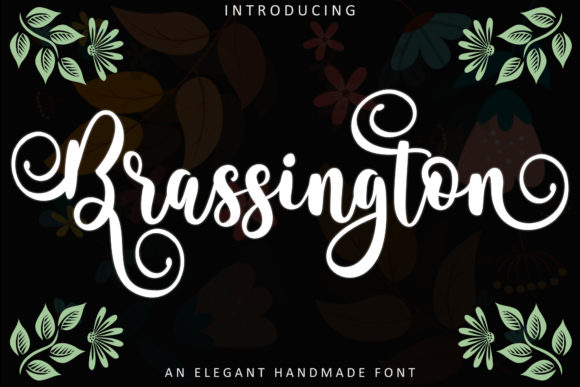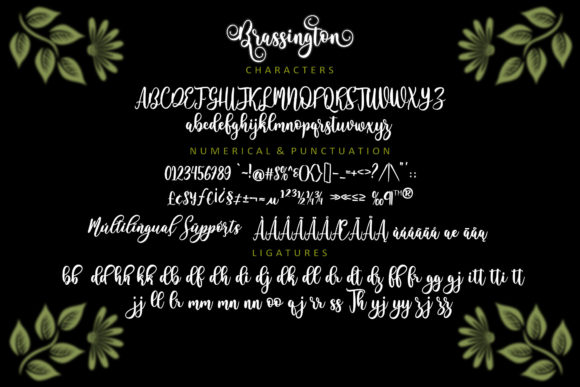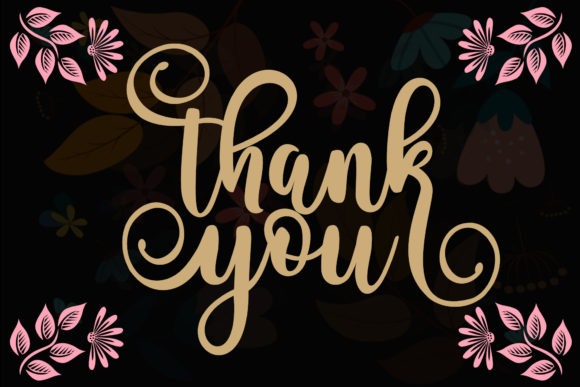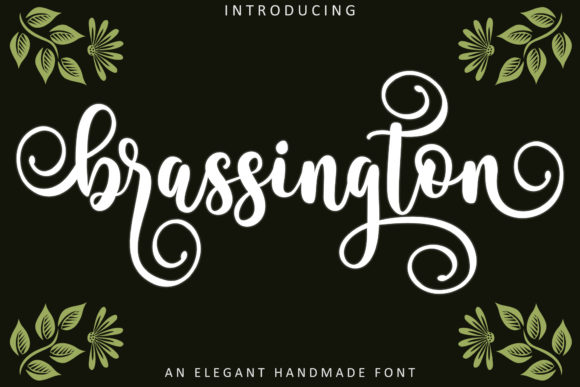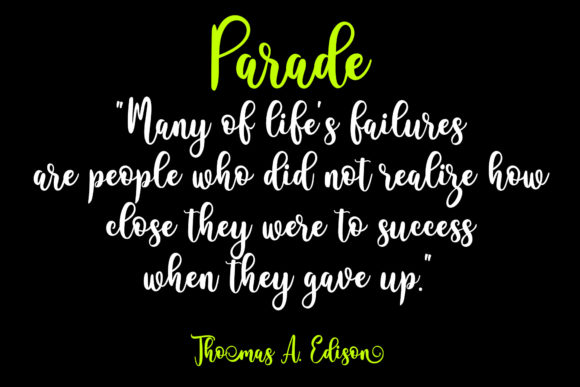
About Brassington Font
Brassington is a lovely and delicate script font that exudes elegance and class. This font was particularly crafted for those who need a beautiful and refreshing look to their designs.
Brassington is PUA encoded which means you can access all of the glyphs and swashes with ease!